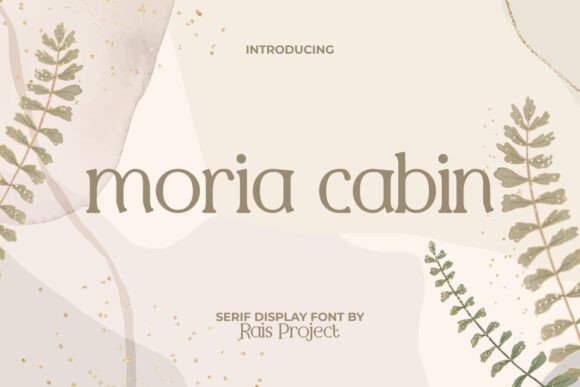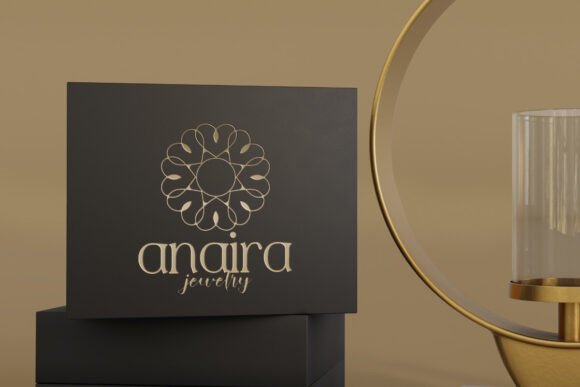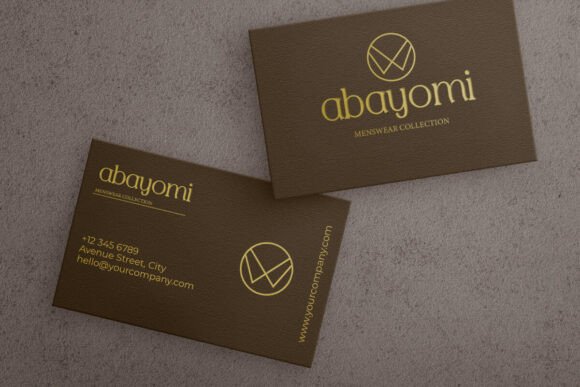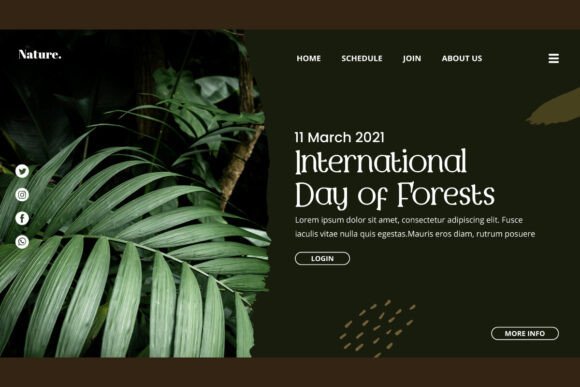
Moria Cabin Font: Unique Aesthetic Serif Display Font for Branding & Design
About the Moria Cabin Font
Crafted with precision, the Moria Cabin Font is ready to bring your ideas to life. Moria Cabin Font is an aesthetic, original, fancy serif display font. This font has additional lines at each end of the letters, which are unique and have their own characteristics. It will be good for any designs, such as brand image, custom design, flyer, invitation, label, marketing material, menu, poster, product packaging, quote, signage, stationery, website page, and more!
Moria Cabin’s strong serif detailing makes it ideal for headlines, logos, and short impactful text on posters or packaging. Its decorative nature, however, makes it less suitable for body text or UI elements where readability is paramount; long blocks of text set in Moria Cabin would be difficult to read.
The font exudes a bold, slightly vintage elegance. It works best for brands aiming for a sophisticated yet eye-catching image—think luxury goods, boutique hotels, or high-end publications. Pairing it with a clean sans-serif like Open Sans for body copy or a geometric sans-serif like Futura for a more modern feel would create a strong visual hierarchy.
Consider pairing Moria Cabin with a script font like Great Vibes for a more romantic feel, or a playful handwritten font for a less formal, more approachable brand identity. Avoid pairing it with other highly decorative fonts, as this could lead to visual clutter.
Moria Cabin Font Usage Examples
Moria Cabin Font Example